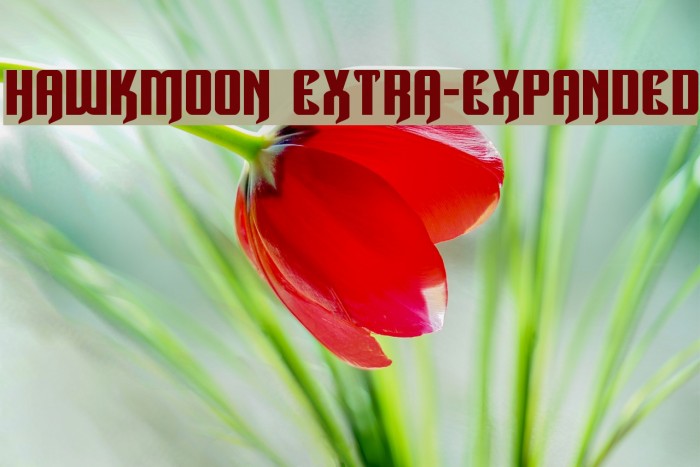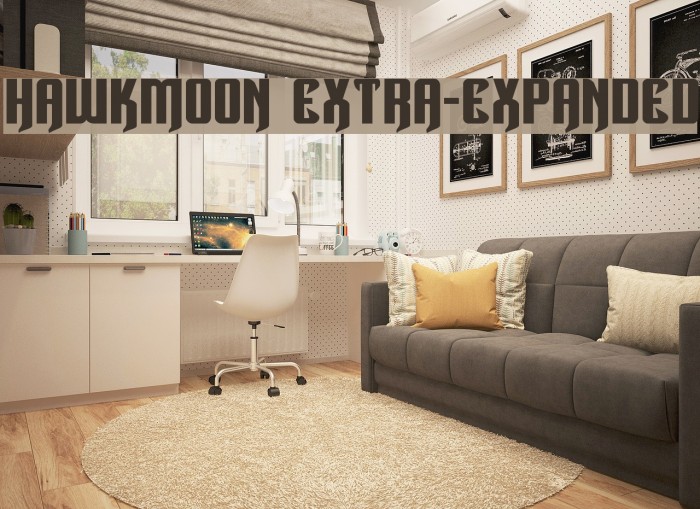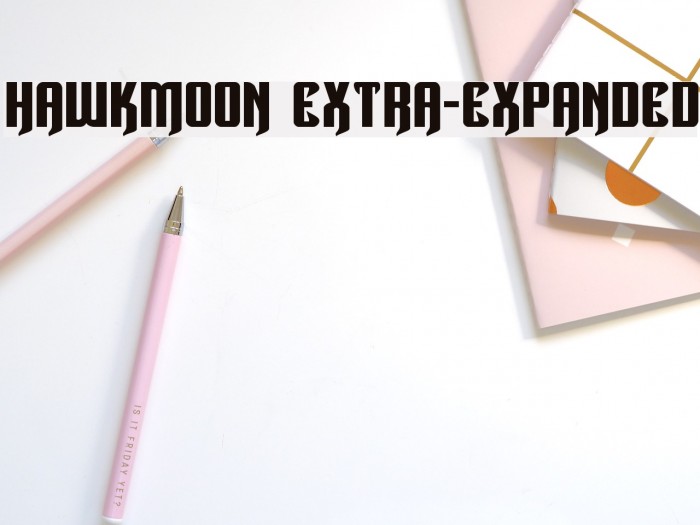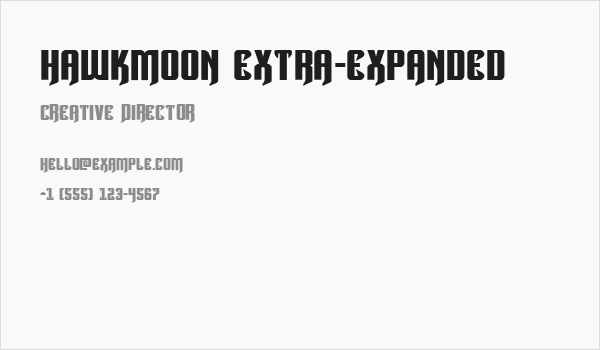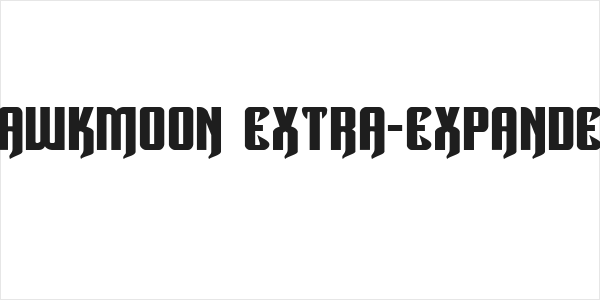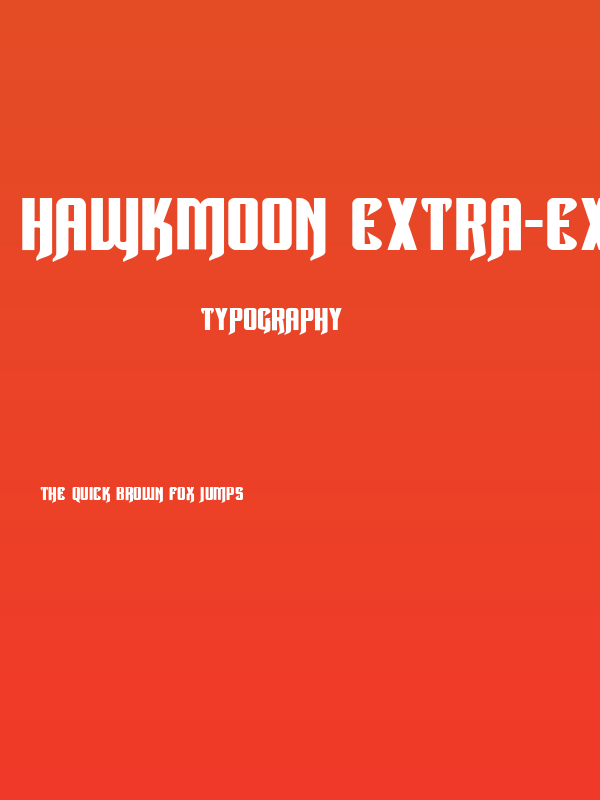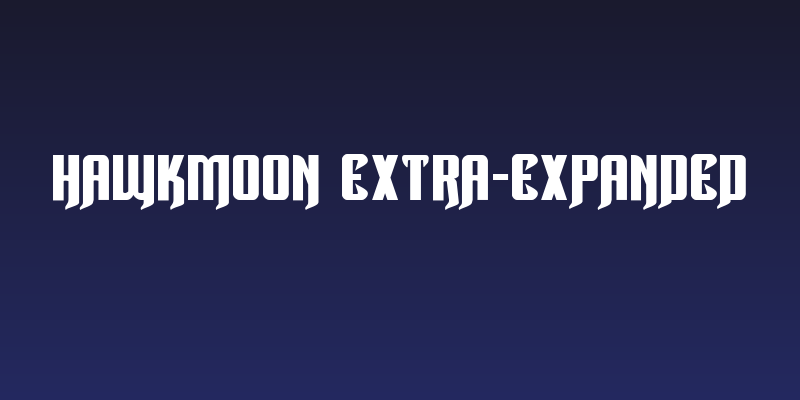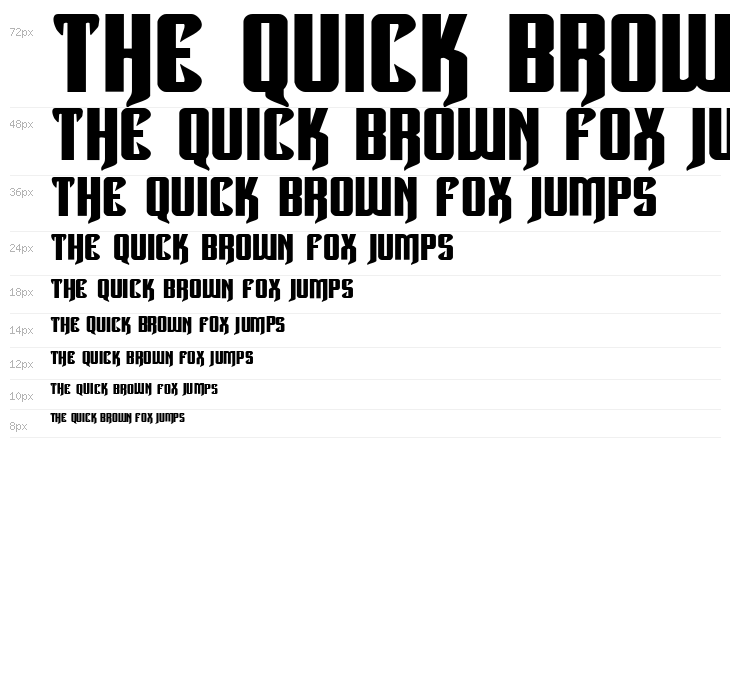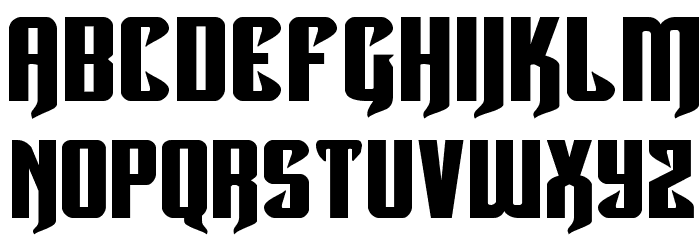
Hawkmoon Extra-expanded Font
Hawkmoon Extra-expanded Description
This font features a bold and striking design with a distinctly modern and decorative flair. The characters are extra-expanded, giving them a wide stance that commands attention. The angular and geometric shapes of the letters create a sense of strength and stability, while the sharp edges and unique cutouts add a touch of sophistication and style. This font is ideal for making a bold statement and is perfect for projects that require a strong visual impact. The uppercase and lowercase letters maintain a consistent style, and the numerals and special characters are designed to complement the overall aesthetic.
| Proposed Projects | Ideal for posters, logos, branding, and headlines that require a strong visual impact. |